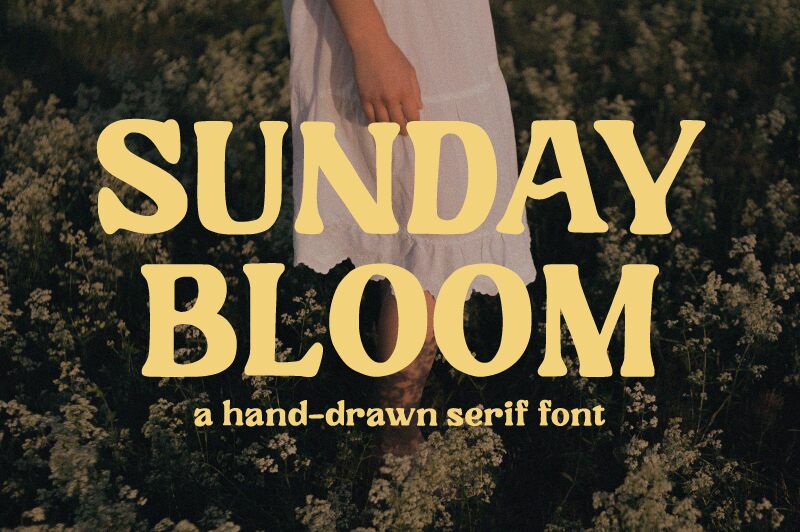
Sunday Bloom, a mesmerizing handdrawn serif font by Prioritype Co, adds a touch of elegance to any project. Its bold weight exudes confidence and captivates the eye with its unique handcrafted charm.
Perfect for wedding invitations and stationery, it also shines in branding projects, logo designs, and packaging. Sunday Bloom effortlessly brings a sense of warmth and nostalgia to menus, book covers, and social media graphics. With its delicate strokes and organic feel, this font is the epitome of artistic expression in typography.